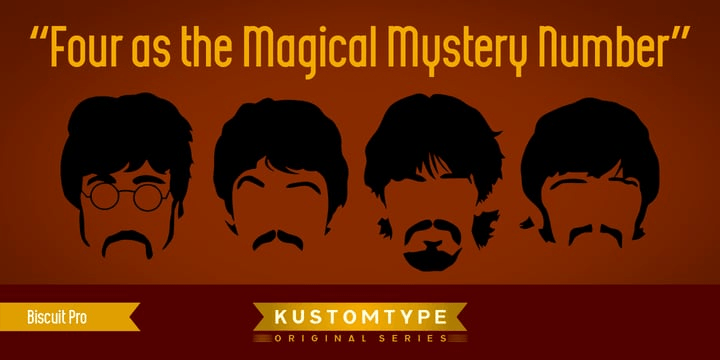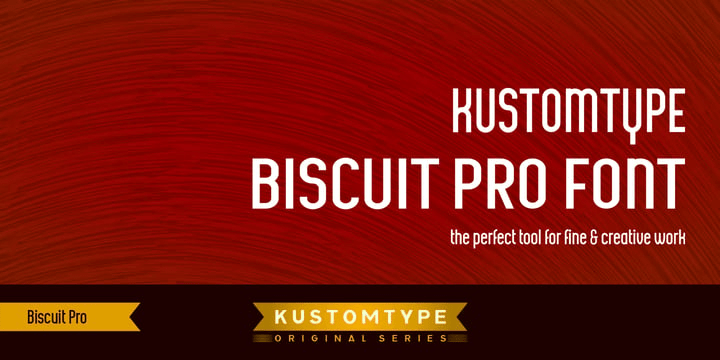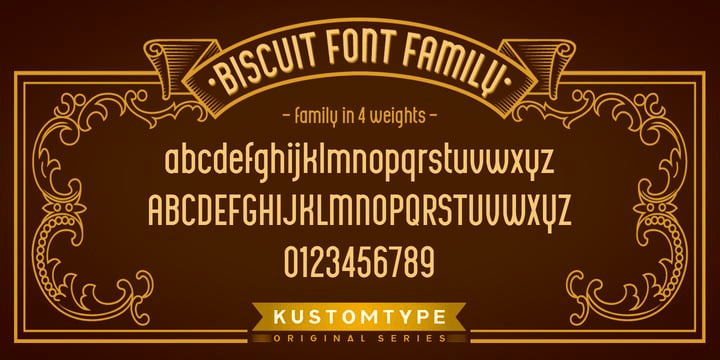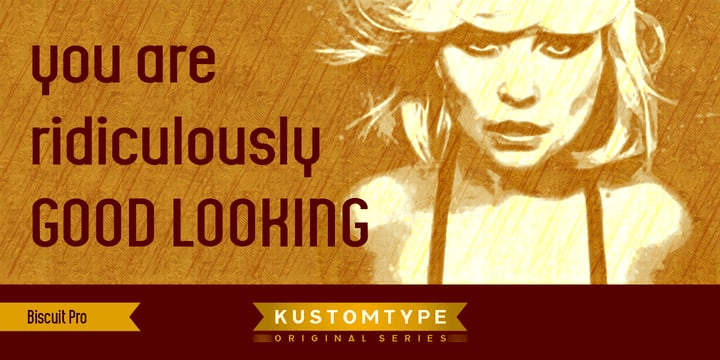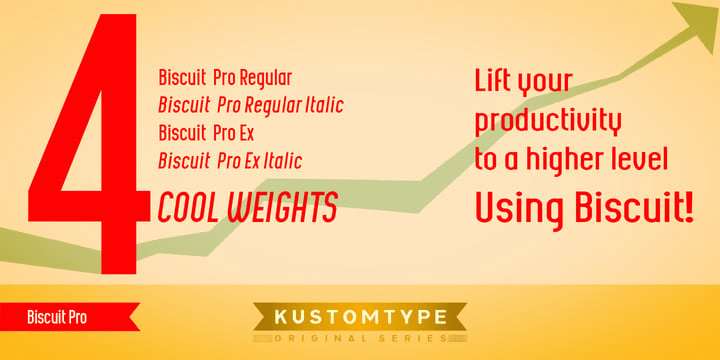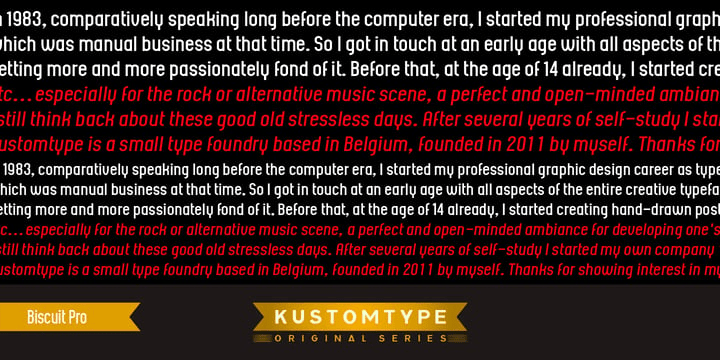
Biscuit
Font Family by Kustomtype
Biscuit is a rounded unique typeface, clearly and easy readable with upper- and lowercase. Perfectly applicable for big or bold tekst pages. This font family has an excellent legibility - both in print and on the web - and an optimized kerning. Biscuit is intentionally designed to be used as a display typeface in publications, packaging and al of your artwork and design. It's warm and cosy character suits extraordinary well for modern or vintage typography and corporate design.